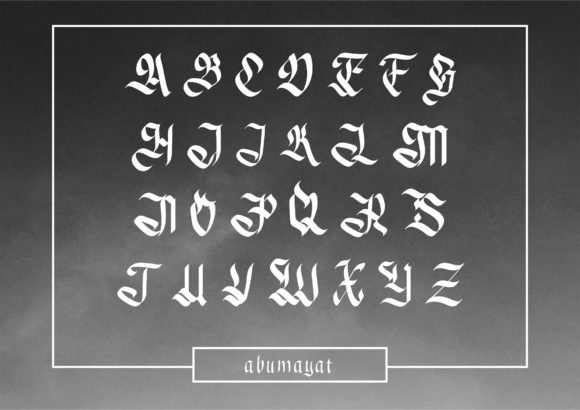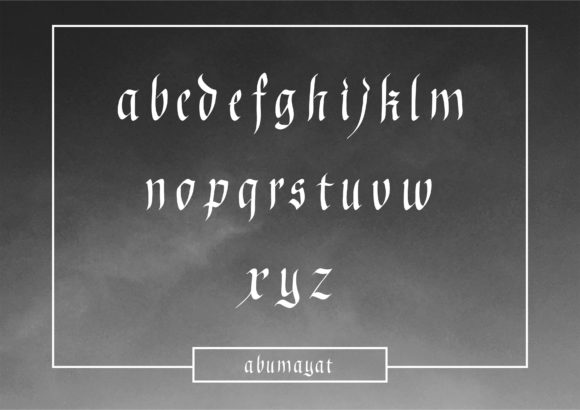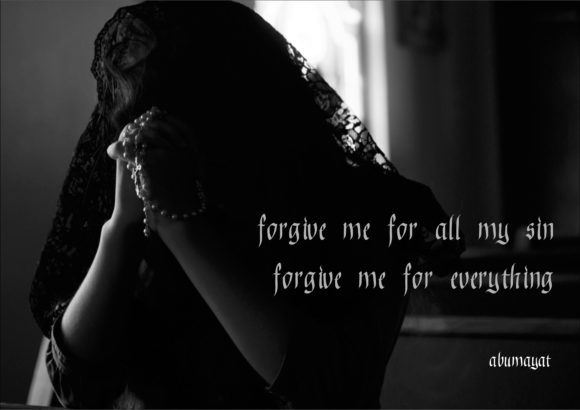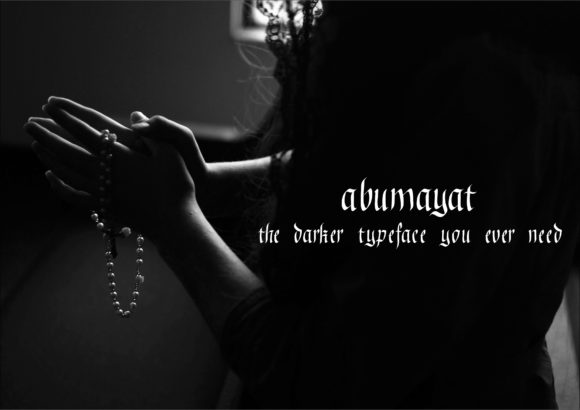
Unleash the Dark Side: Discover the Abumayat Font
Are you a metalhead, a gothic enthusiast, or a designer looking for a unique and mysterious font to add some edge to your project? Look no further than the Abumayat Font, a striking blackletter script that embodies the dark way of life. Inspired by the mysterious and the unknown, Abumayat is the perfect addition to any gothic-themed project, music album, or merchandise design.
The Origins of Abumayat
The Abumayat Font is a relatively new creation, born out of a passion for the dark and the unknown. Its name is shrouded in mystery, and its design is inspired by the old-world feel of traditional blackletter scripts. The font’s creator aimed to craft a typeface that would evoke the spirit of the night, with its intricate lines, sharp edges, and bold presence.
Characteristics of Abumayat Font
Abumayat is a true blackletter script, characterized by its dramatic flourishes, sharp serifs, and bold strokes. The font features:
- Intricate lettering: Each letter is carefully crafted with intricate lines and curves, creating a sense of mystery and drama.
- Sharp edges: The font’s sharp edges and serifs give it a bold, edgy feel that’s perfect for gothic-themed projects.
- Bold presence: Abumayat is a statement font, designed to grab attention and make a lasting impression.
- High contrast: The font’s high contrast between thick and thin lines adds to its dramatic effect.
Perfect for Metalheads and Gothic Enthusiasts
Abumayat Font is a natural fit for any metalhead or gothic enthusiast looking to add some edge to their project. Whether you’re designing a music album, merchandise, or promotional materials, Abumayat is the perfect choice. Its bold, edgy feel and mysterious vibe make it an ideal font for:
- Music albums: Add a touch of darkness to your music album artwork with Abumayat’s bold, gothic-inspired design.
- Merchandise design: Create eye-catching merchandise, such as t-shirts, posters, or stickers, with Abumayat’s striking font.
- Gothic-themed projects: Bring your gothic-inspired project to life with Abumayat’s mysterious and dramatic design.
Abumayat Font is a one-of-a-kind blackletter script that’s perfect for metalheads, gothic enthusiasts, and designers looking to add some edge to their project. With its intricate lettering, sharp edges, and bold presence, Abumayat is sure to make a lasting impression. So why wait? Unleash the dark side and discover the power of Abumayat Font for yourself.